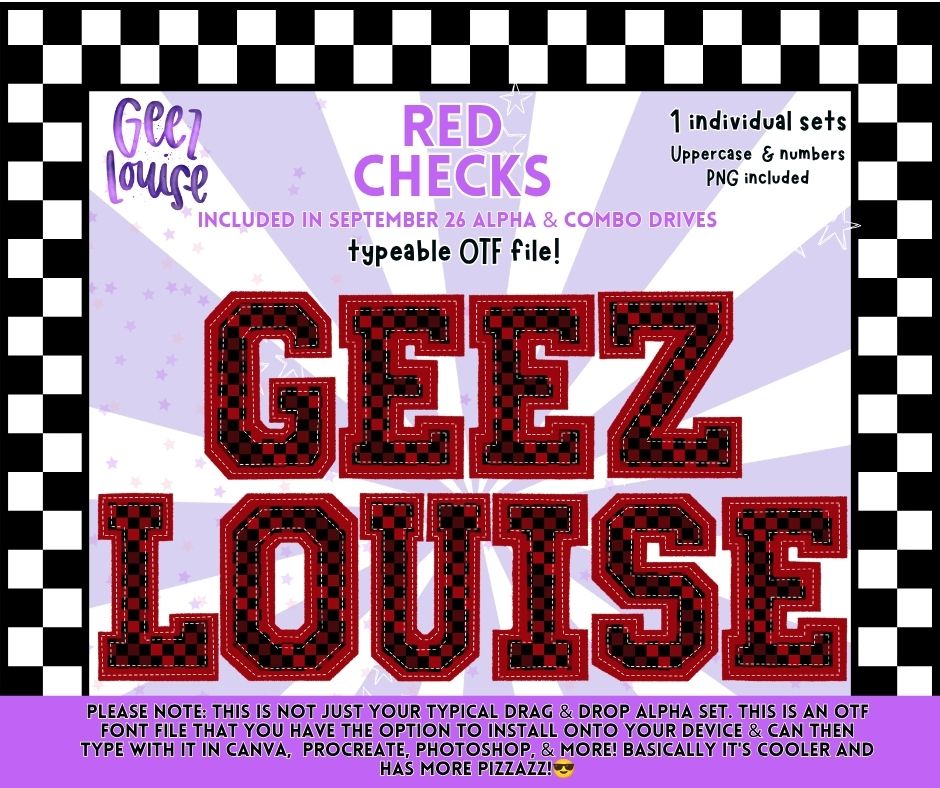
Red Checks OTF Alpha | Red & Black Checkered Varsity Font | Uppercase Letters & Numbers
Classic red and black just hits different. ❤️🖤🏁
Red Checks is a bold varsity-style alpha featuring a red and black checkered fill, layered red detailing, and stitched-style accents. And because dragging letters around one by one gets old REAL quick, this set includes a typeable OTF font!
✨ Perfect for sports, school spirit, mascots, team designs, shirts, sublimation projects & more